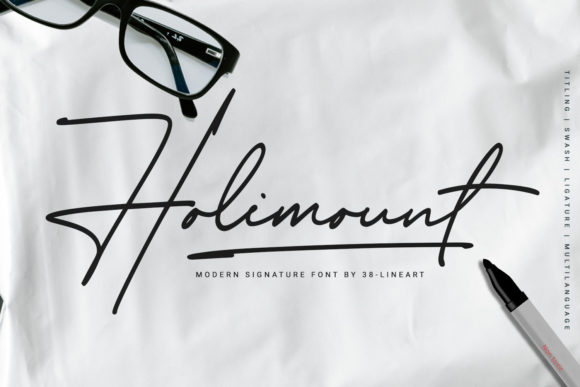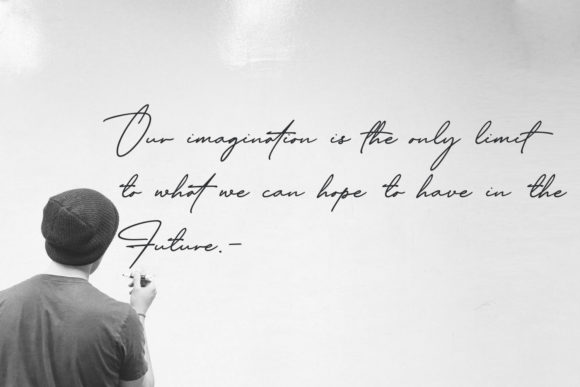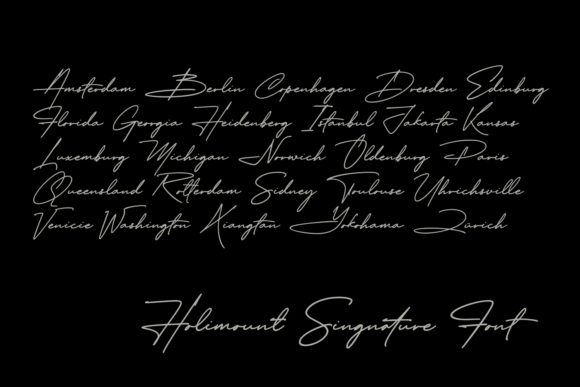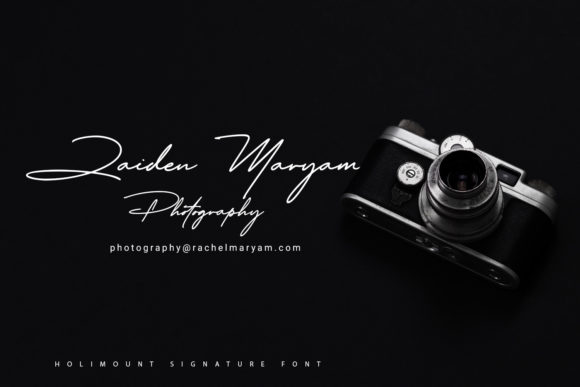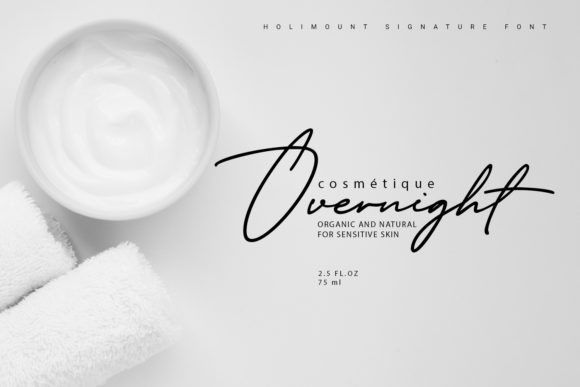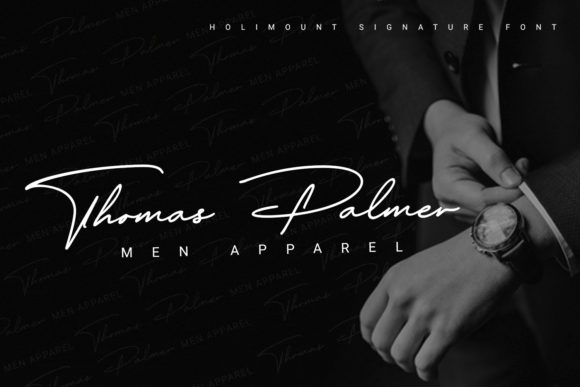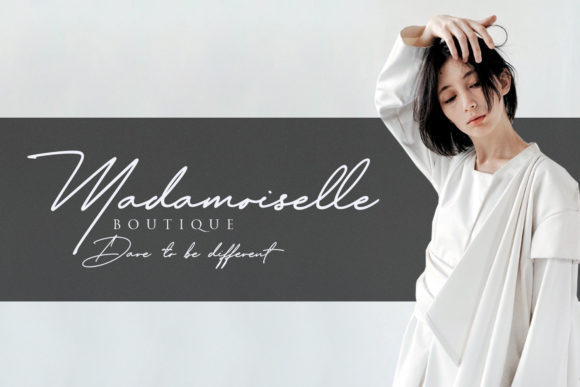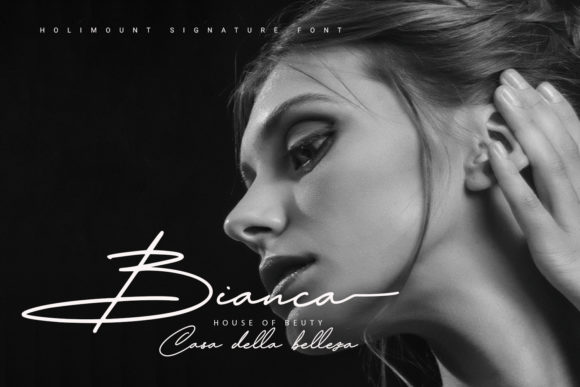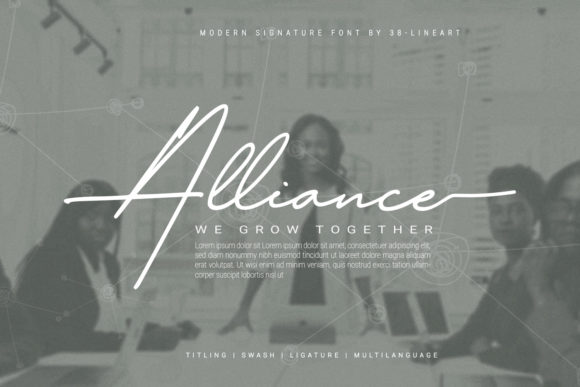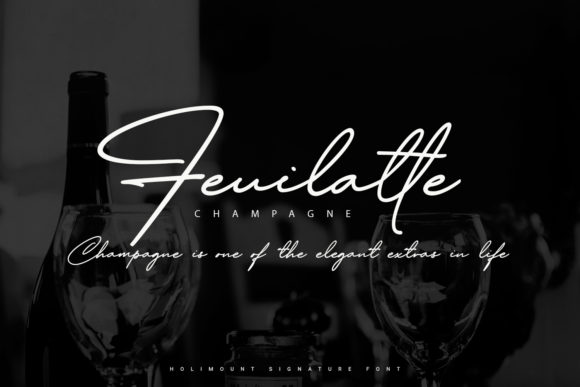
Holimount Font
About Holimount Font
Holimount is a sweet and charming handwritten font that’s perfect for adding a sweet flavor to any creative endeavor.